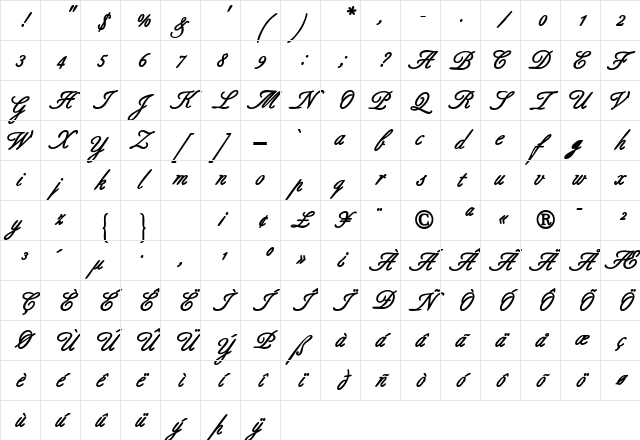
AldridgeScriptSSK Bold
Design Context for AldridgeScriptSSK
AldridgeScriptSSK flows with the natural rhythm of handwritten lettering, making it ideal for designs that call for warmth and personal expression. Its bold stroke weight gives it real presence on the page.
Font Pairing: Combine AldridgeScriptSSK with a simple geometric sans for maximum contrast - the tension between flowing curves and clean structure is a classic typographic pairing.
Pro Tip: Use AldridgeScriptSSK for short runs of text - names, titles, or taglines. Extended body copy in script faces tires the eye quickly.